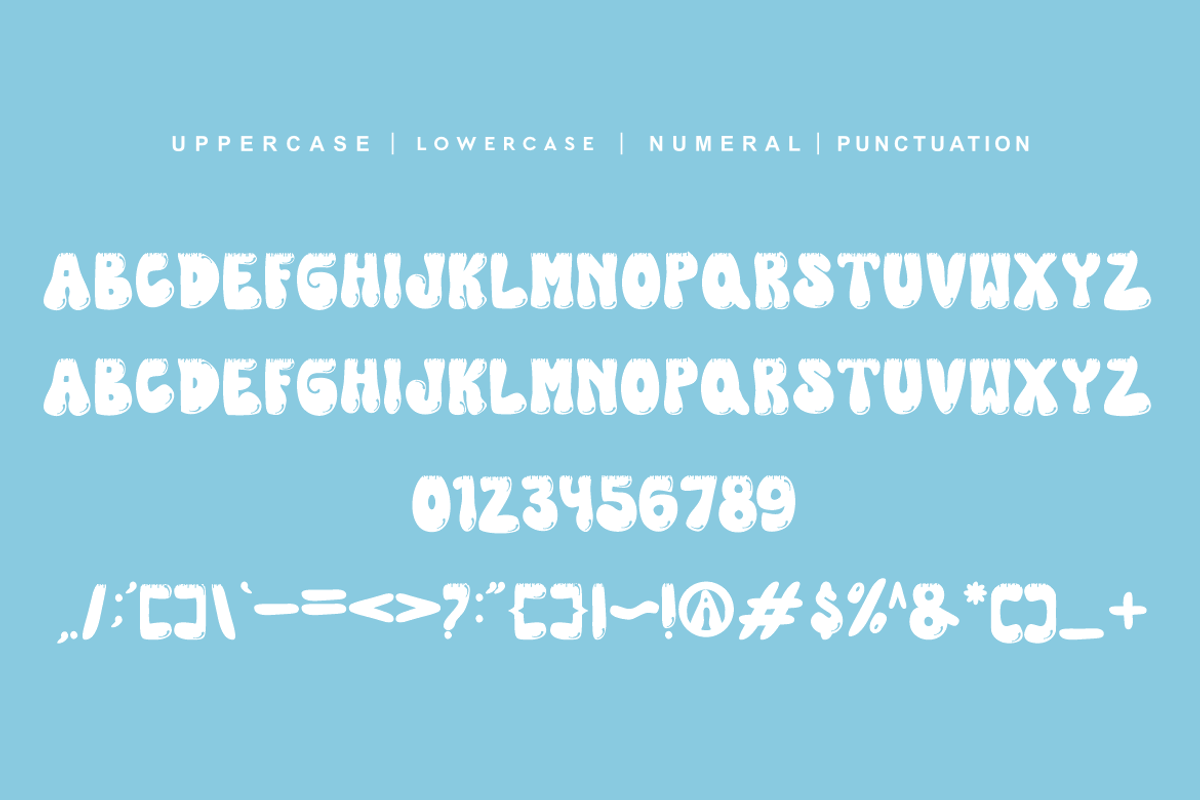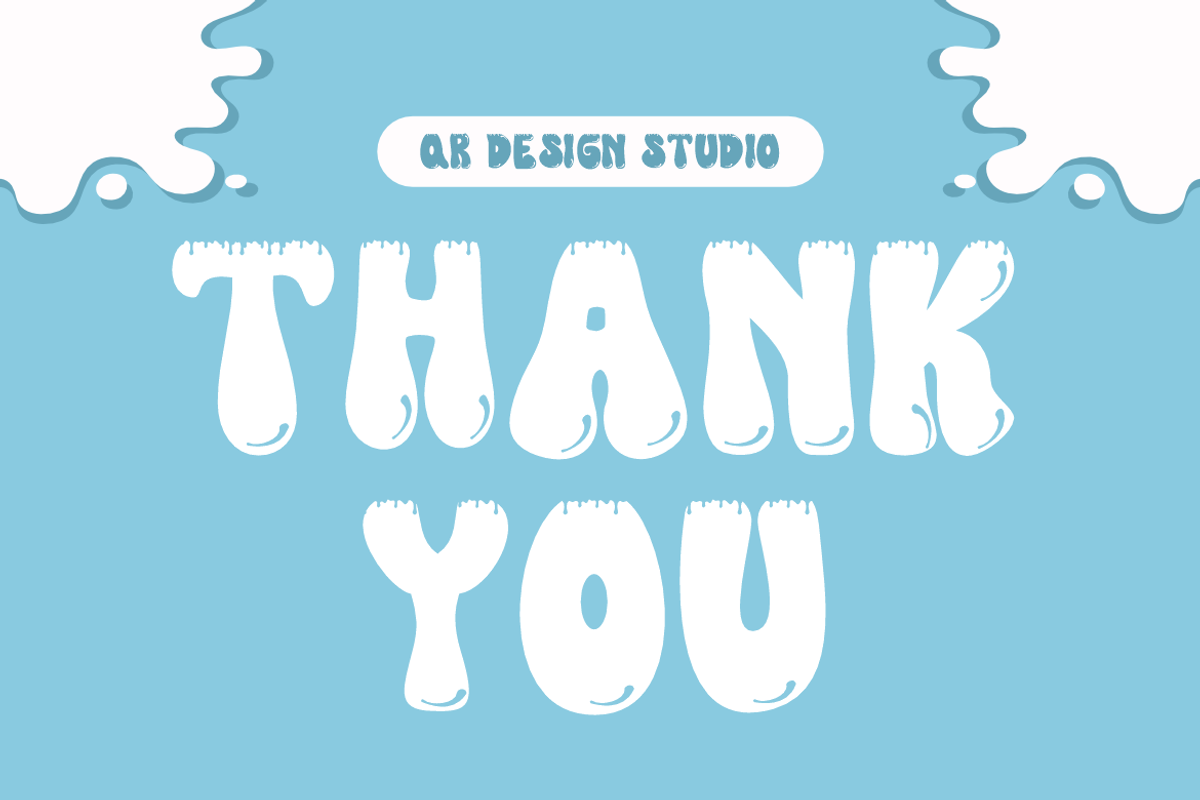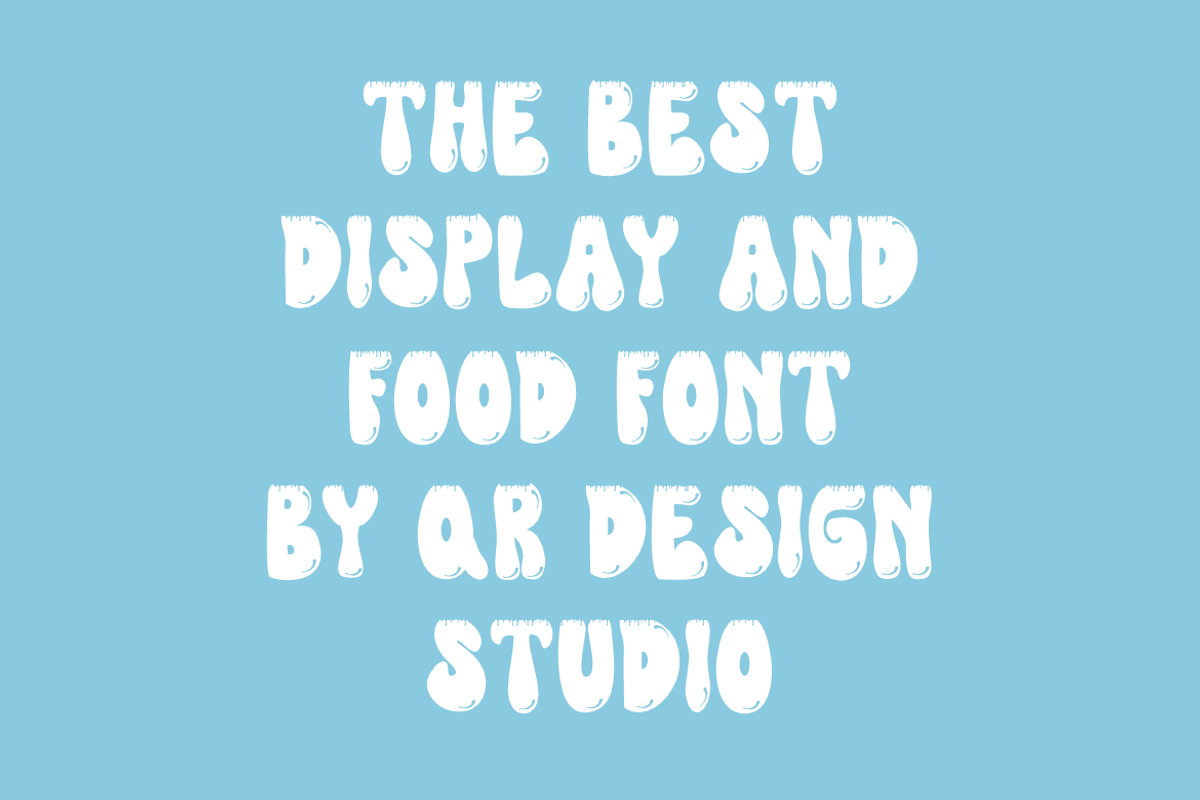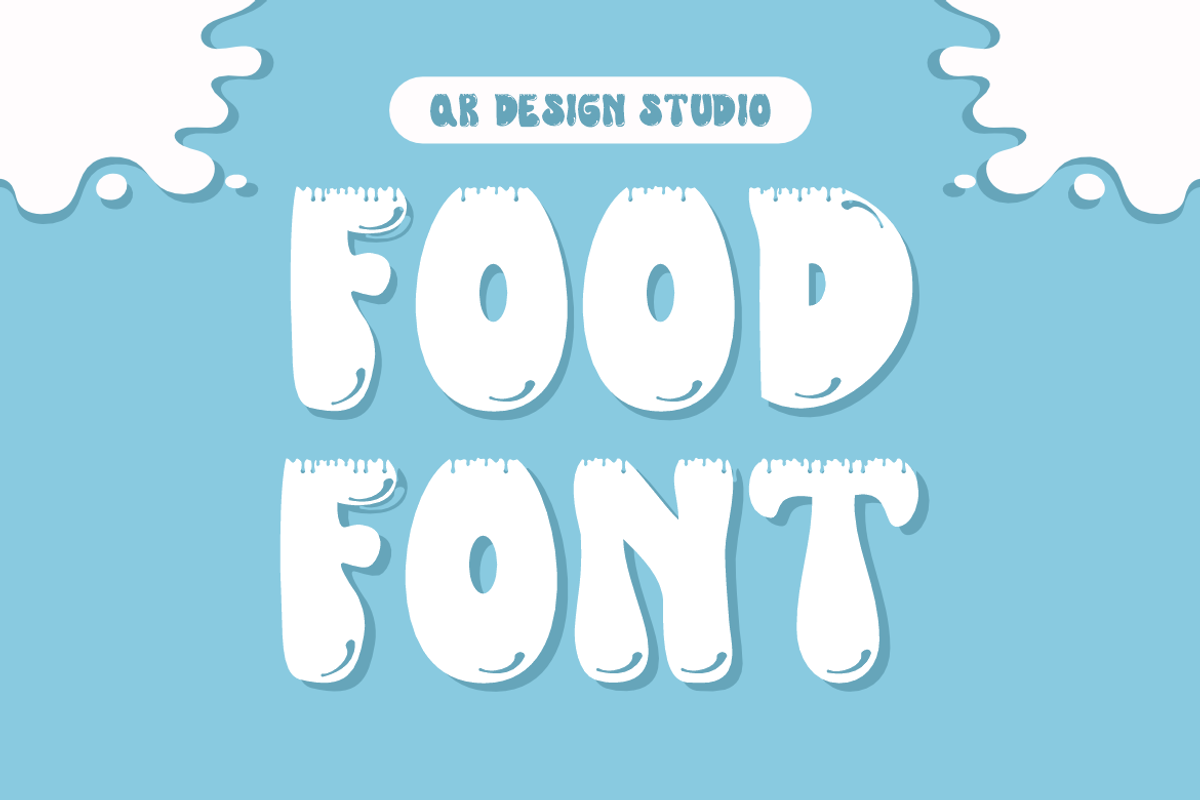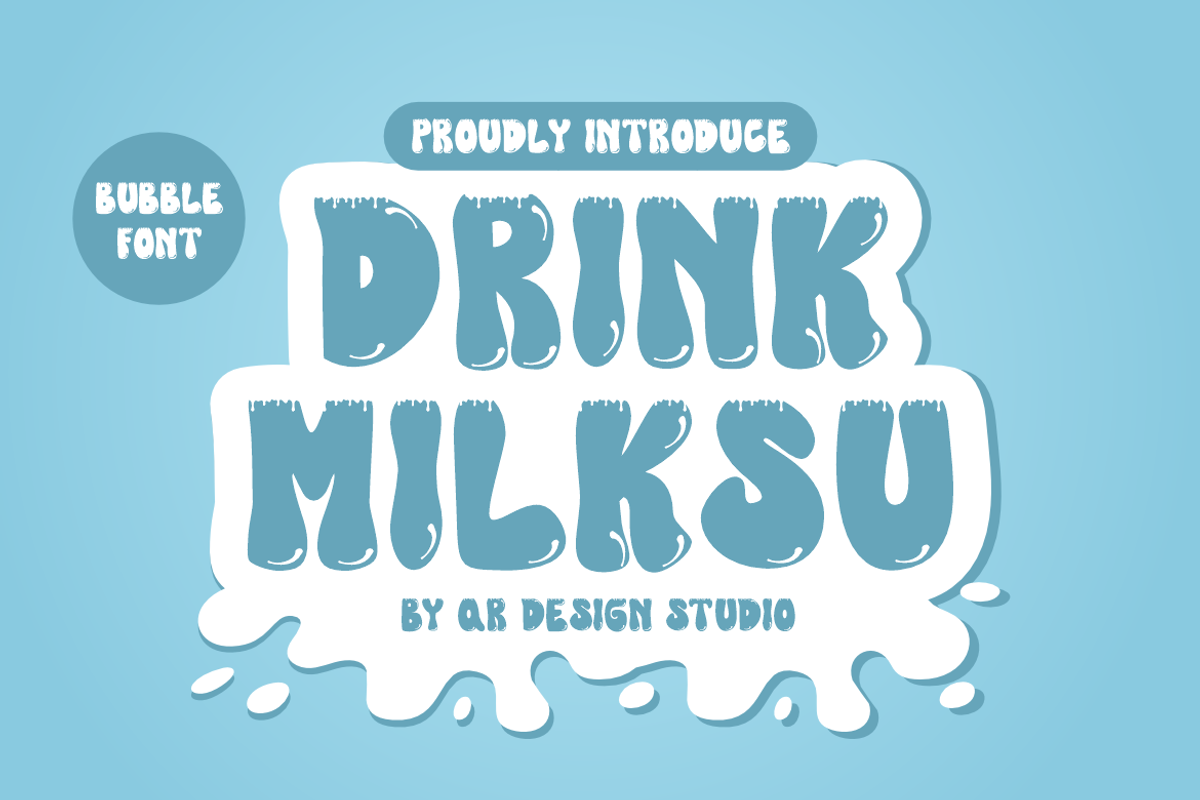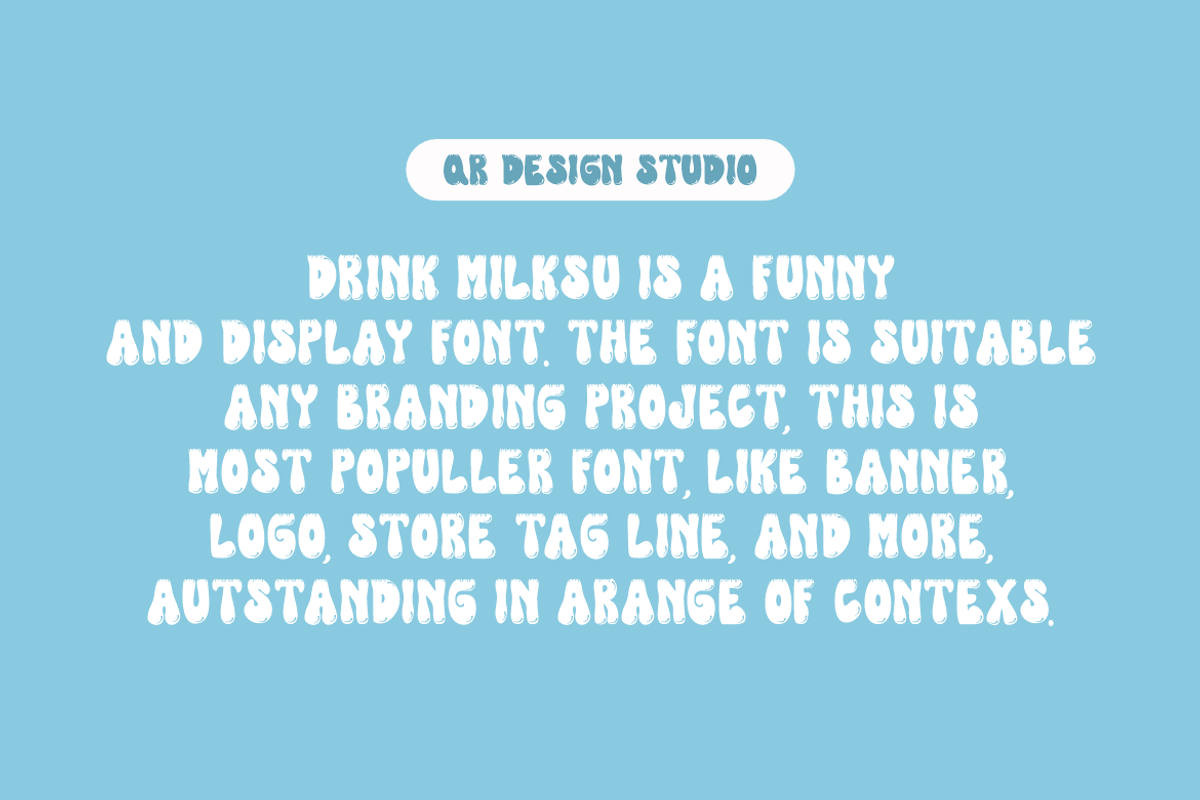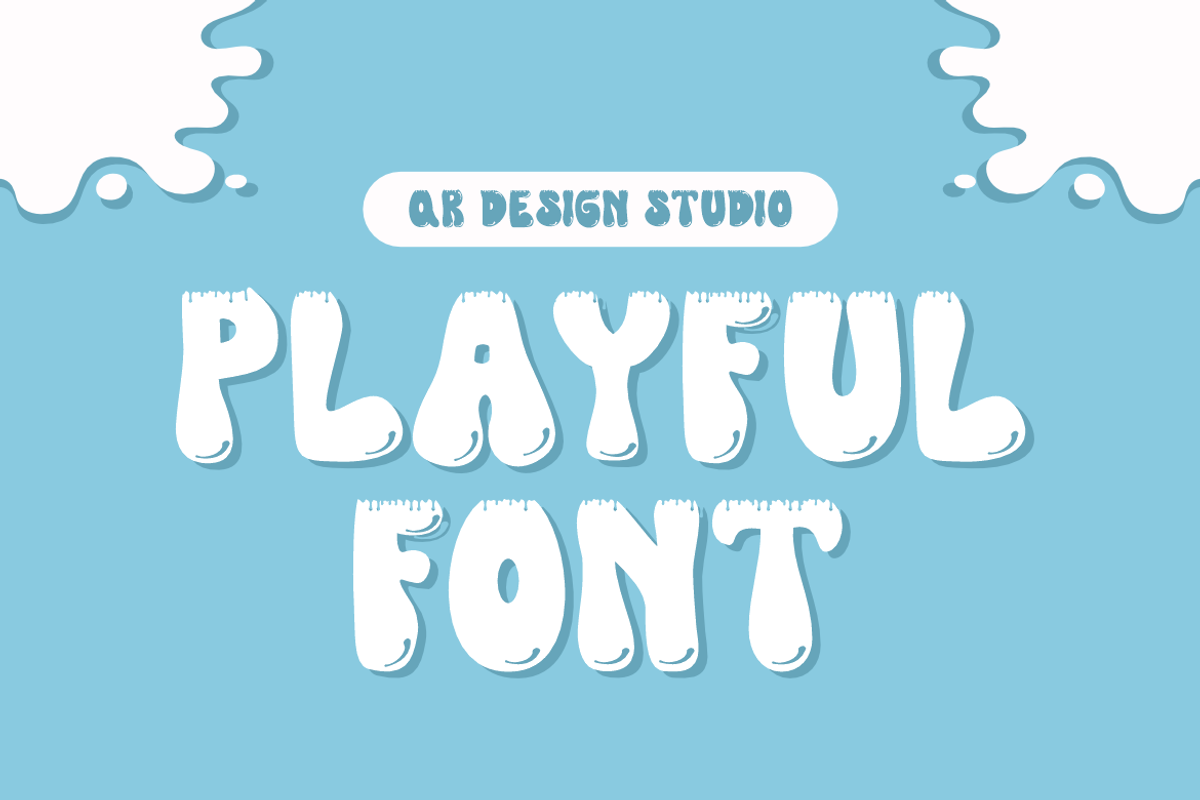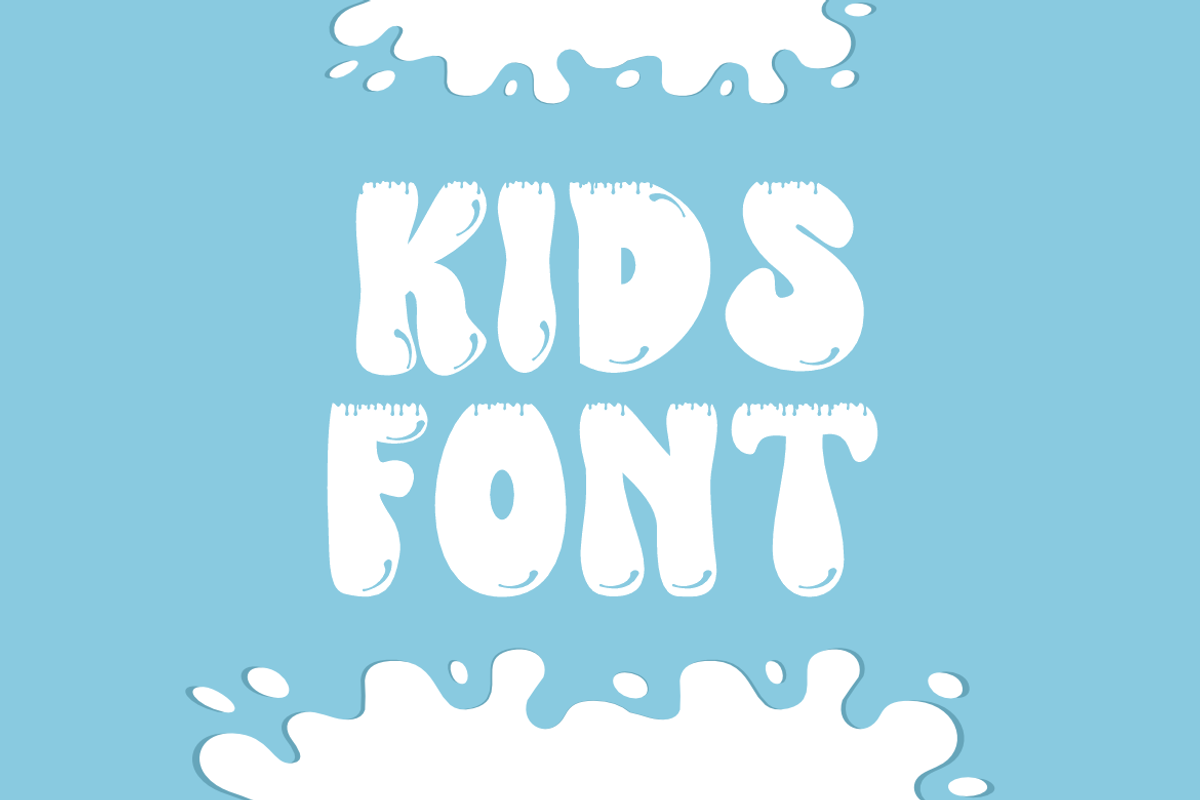
Drink Milksu - Free Fonts
Drink Milksu - Free Fonts is a bold and authentic display font. The font is suitable for any branding project like food, kids, poster, logo, sport, and many more. Outstanding in a wide range of contexts.